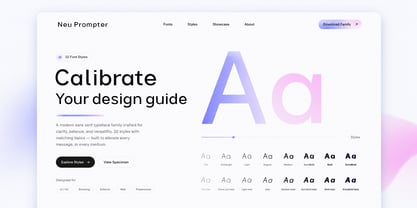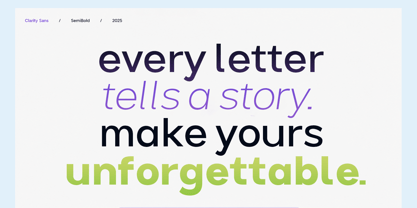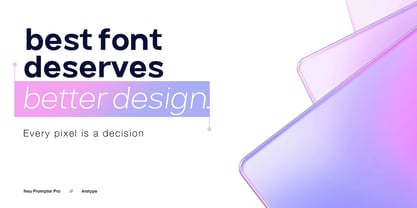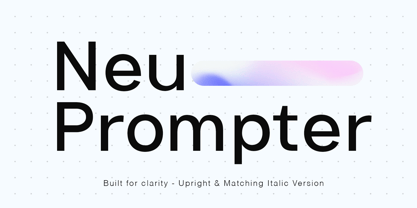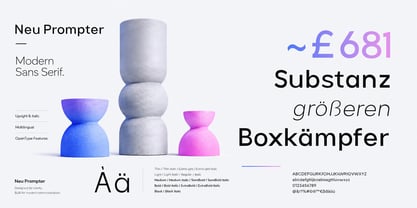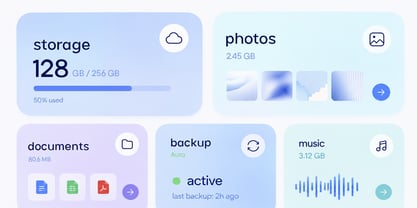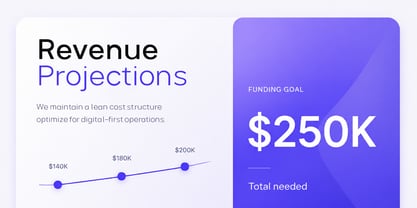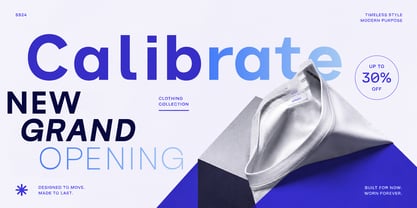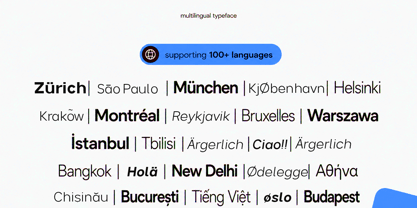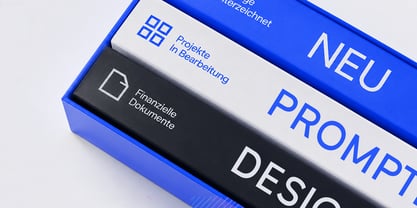
Neu Prompter
Die Schriftfamilie Neu Prompter wurde von Mohammad Chandra Hamdani entworfen und von Aretype veröffentlicht. Neu Prompter enthält 17 Stile und Familienpaketoptionen. Mehr über diese Familie
Neu Prompter is a contemporary geometric sans serif typeface designed for clarity, balance, and modern communication. Crafted by Aretype, this family offers multiple styles paired with matching italics — giving designers a complete toolkit for any creative challenge.
With a clean, neutral structure and carefully tuned letterforms, Neu Prompter performs beautifully across a wide range of applications: UI and UX design, branding and identity, editorial layouts, web typography, and presentation design.
The family spans from Thin to Black, providing expressive contrast within a single cohesive system. Each weight is precisely spaced and optimized for both display and text sizes, ensuring legibility at every scale.
Neu Prompter supports 100+ languages with extensive Latin character coverage, making it a reliable choice for international projects and multilingual brands.
Whether you're designing a startup brand, a digital product, or a print publication — Neu Prompter brings quiet confidence to every typographic moment.
Features:
- Thin to Black weight range
- 100+ language support
- OpenType features
- Optimized for UI, branding, editorial, and web
- Designed by Aretype
Designer: Mohammad Chandra Hamdani
Foundry: Aretype